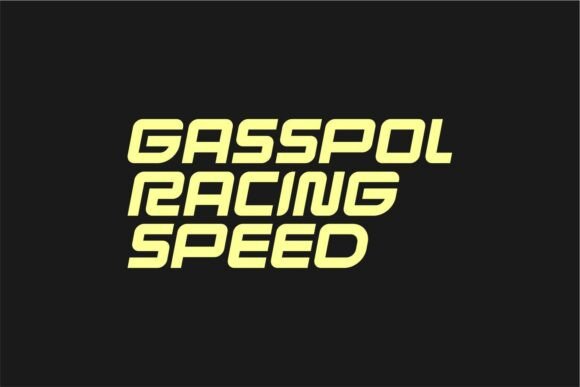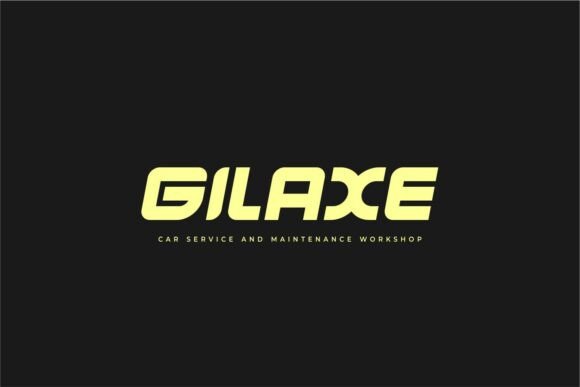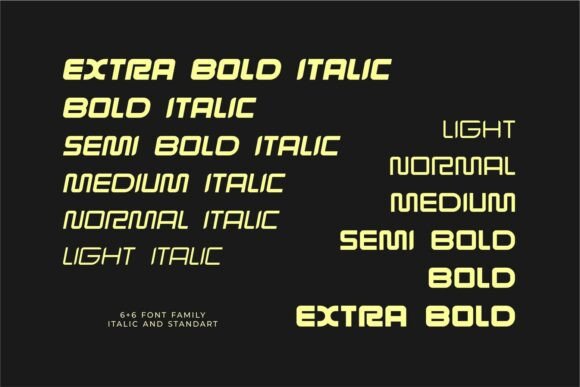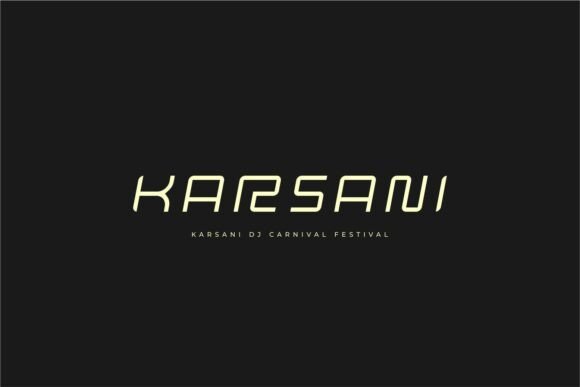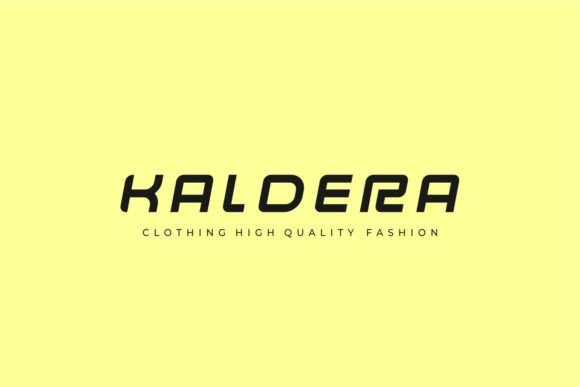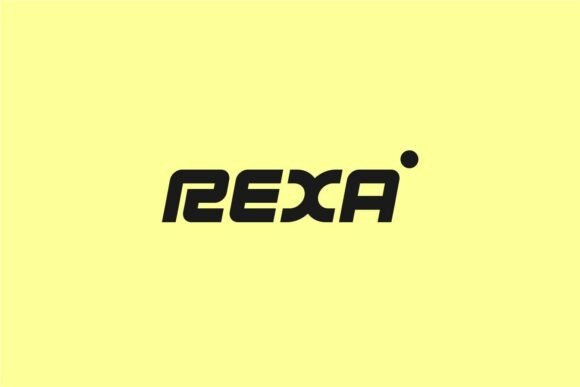
Introduction to Regixa Normal Font
Have you ever stared at a blank design canvas, trying to conjure up the perfect font to elevate your creative project? The struggle is real, especially when you’re aiming for a sleek, modern aesthetic. That’s where Regixa Normal Font comes in – a game-changing display typeface designed to give your branding and logo designs a futuristic edge.
With its bold curves, sharp angles, and unique geometric character shapes, Regixa Normal Font is the ultimate design resource for creatives seeking to make a statement. Its clean, high-quality design is perfect for logos, posters, product packaging, and digital interfaces, offering endless possibilities for designers to experiment and push the boundaries of their work.
As a valuable addition to any designer’s toolkit, Regixa Normal Font is now available for free download, complete with a 6+6 font family, including matching italics for added flexibility. Whether you’re working on a personal project or a high-profile client, this versatile font is sure to provide the perfect foundation for your next creative endeavor.
Key Features of Regixa Normal Font
- Includes a comprehensive character set with Latin and Cyrillic alphabets
- Designed for use in various design contexts, including branding and UI design
Honest Review: Regixa Normal Font
What works well about the Regixa Normal Font is its versatility. It can be used for a wide range of design applications, from body text to headings, and even as a title font. The font also features a transparent background, making it easy to overlay on top of images or other design elements. ✨
Here are some of the key features that I liked about the Regixa Normal Font:
- High-quality design that is perfect for creative projects
- Transparent background, allowing for easy layering and composition
- May not be suitable for very formal or professional designs, as it has a more casual tone
- Some users may find the font too plain or generic, depending on their design preferences
- ⚠️ May require additional styling or customization to stand out in crowded design spaces
Overall, I was impressed with the Regixa Normal Font and would recommend it to designers looking for a reliable and high-quality design resource. It’s perfect for creative projects where a clean and simple font is needed.
Tips for Getting the Most Out of Regixa Normal Font
To get the most out of Regixa Normal Font, try using it in combination with other design elements, such as graphics and images. You can also experiment with different font sizes and styles to create a unique look.
Regixa Normal Font is perfect for a variety of creative projects, including graphic design, digital art, and even web design. It’s also great for creating presentations, documents, and other materials that require a professional touch.